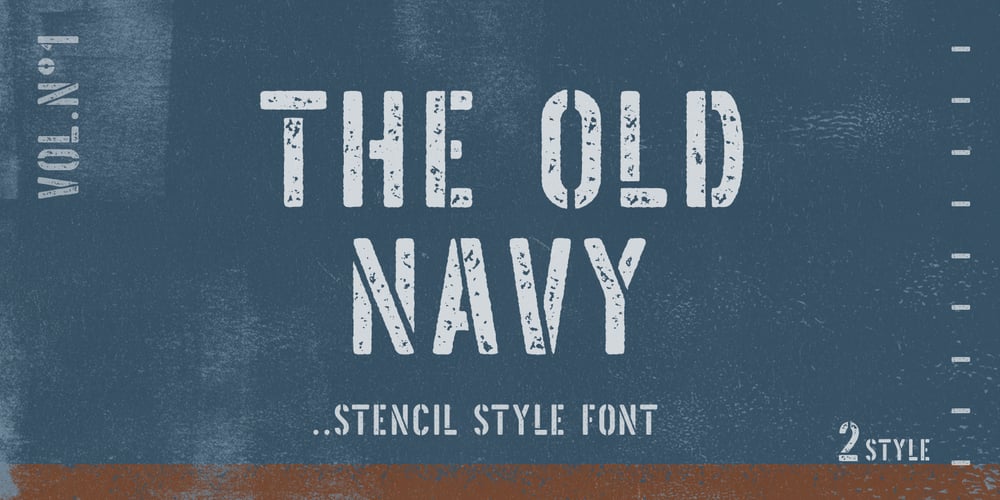
The Old Navy
The Old Navy font
The Old Navy Font Family was designed by Pavel Larin and published by Larin Type Co. The Old Navy contains 2 styles and family package options. The Old Navy – a new stencil style font collection. These fonts are ideal for military-style branding and will decorate any of your projects. You can also use them to create a logo or use for small businesses, t-shirts, hoody, book covers, stationery, logo creation, marketing, blogs, magazines, and more.